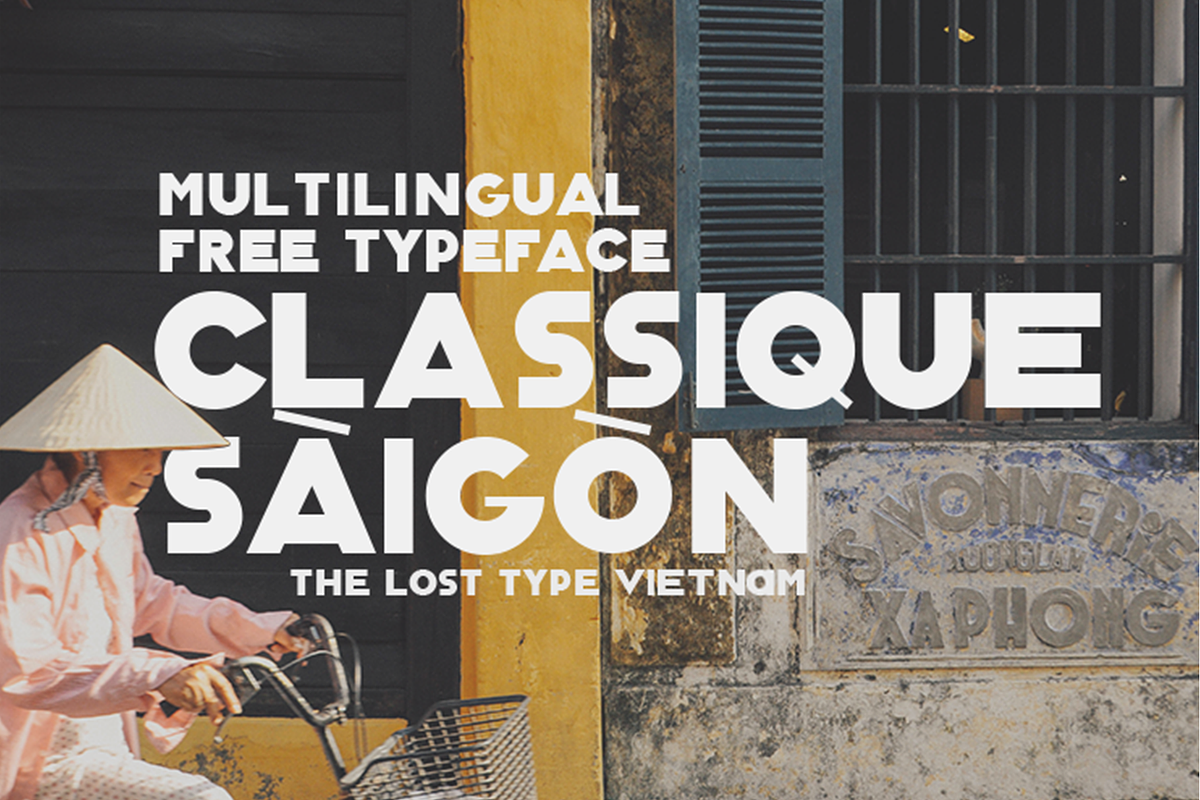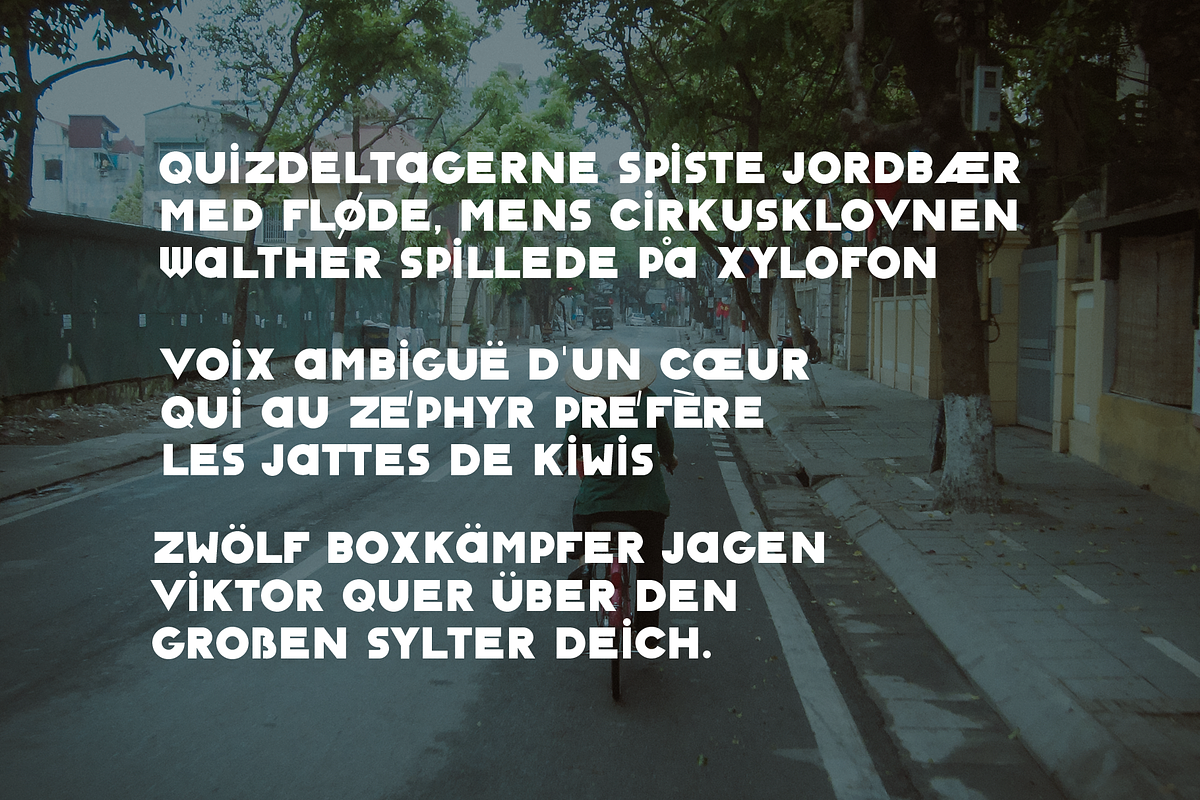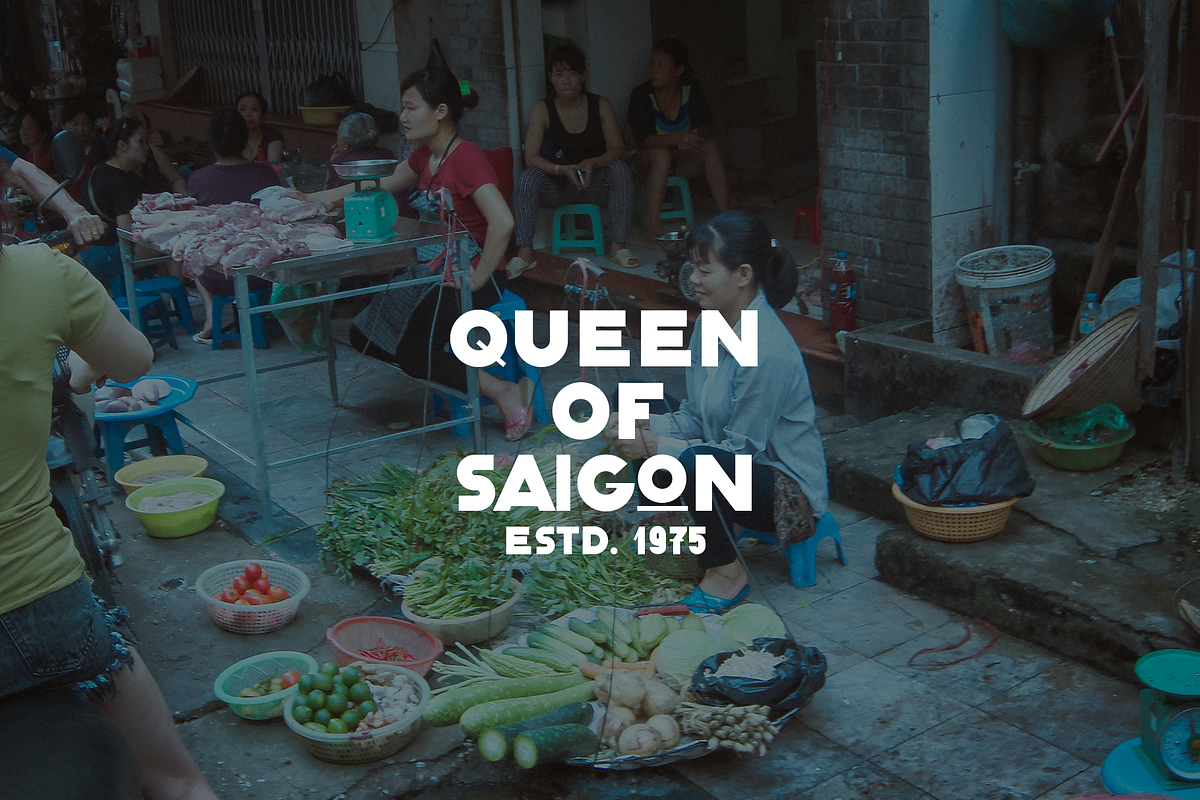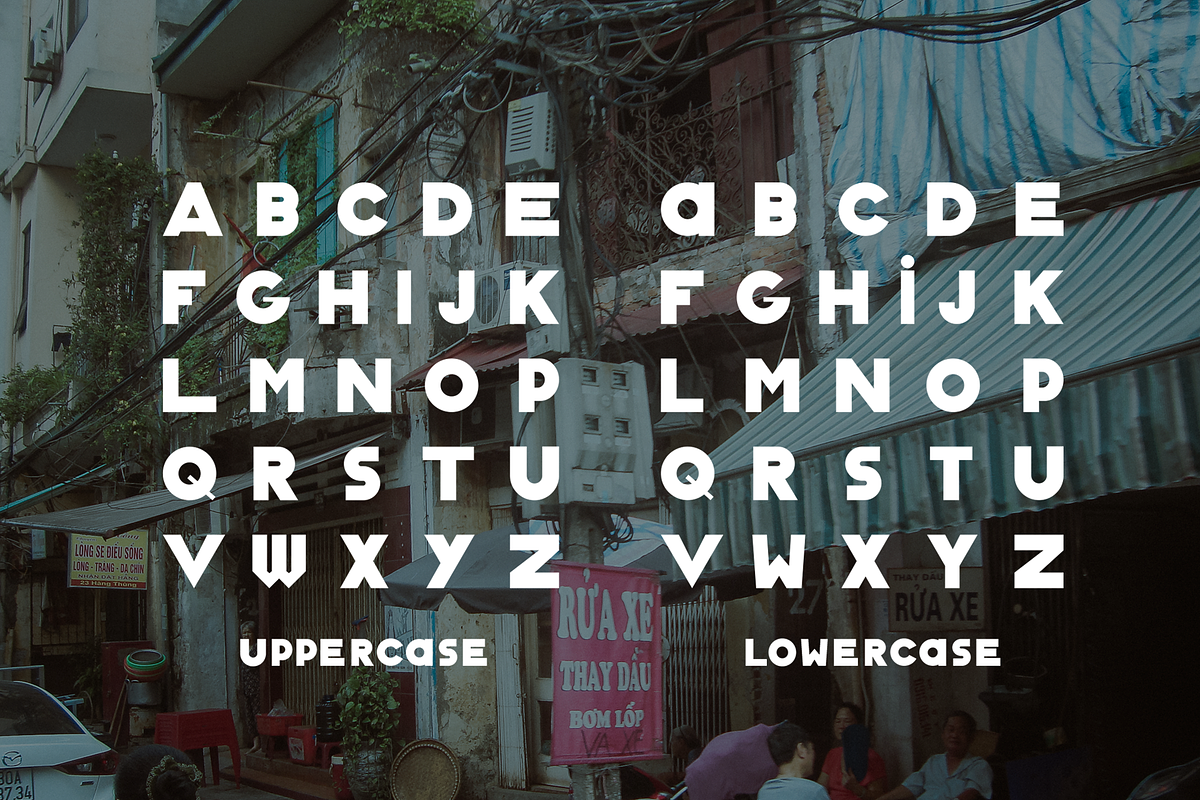
Classique Saigon Typeface
Classique Saigon is a typeface created by Manh Nguyen, a Vietnam-based type designer who is in love with hand-drawn classic panels and banners in Vietnam from the last century -especially in Saigon, where he decided to call these magnificent and marvelous work as Saigon style. Fortunately he's inspired by a project named Lưu Chữ (The Lost Type Vietnam - #luuchu), which focus significantly on the photos captured every single moment on the street all over Vietnam with this Saigon style banners, panels etc. to spread the world about this beautiful traditional Vietnam hand-drawing style and to conserve ones which are becoming more and more rarely. With this inspiration, Manh adds his own definition about fonts (including both classic and modern designs) and his feeling about the impressive draftmanship from streetlife to the final typeface and named it Classique Saigon (or stylized as Classique Sài-gòn)
Classique Saigon is a thick, geometry-affected multilingual display sans serif typeface inspired by retro handdrawn style but it also contains uniquely aesthetic modern design.Free demo version can be downloaded here:
- With this inspiration, Manh adds his own definition about fonts (including both classic and modern designs) and his feeling about the impres
Why Classique Saigon Typeface is worth a look
Classique Saigon Typeface by One Pillar Studio fits naturally into Branding, posters, packaging, typography.